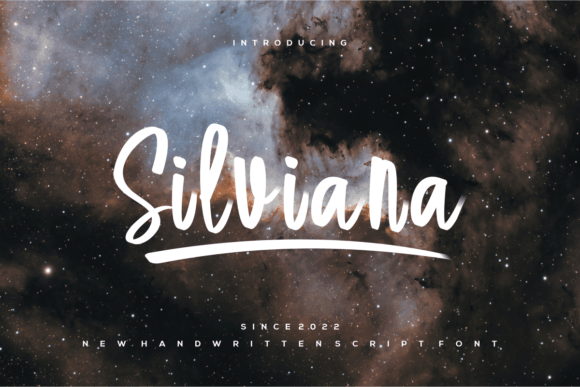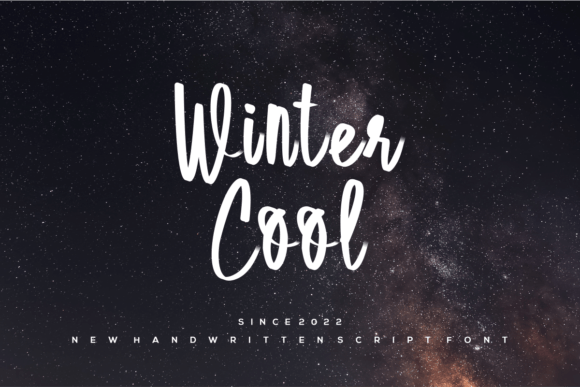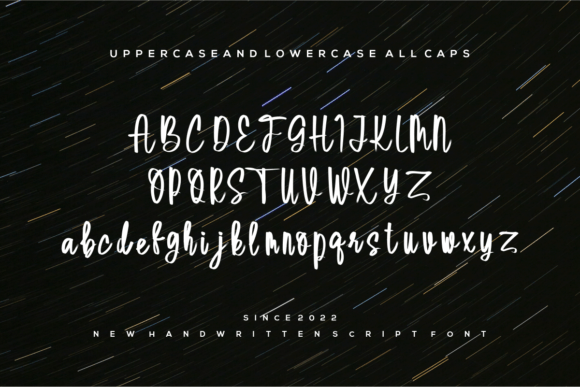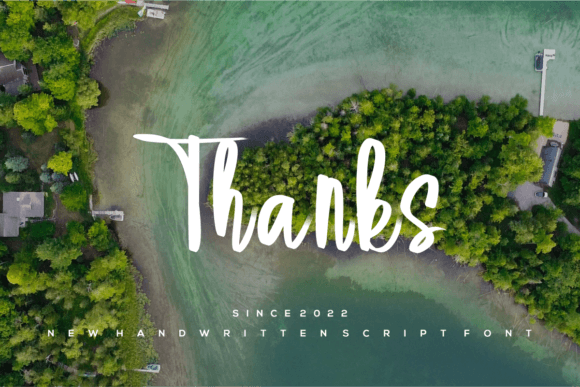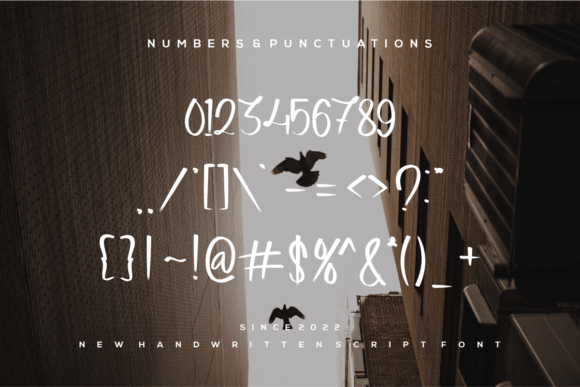
About Silviana Font
Meet Silviana, a sweet and elegant handwritten font that seamlessly marries a classy calligraphic influence with a contemporary and fresh feel. Let yourself fall in love with its charm, and elevate your project to the highest level with the timeless elegance of Silviana!
This font encapsulates a perfect blend of sweetness and sophistication, making it a versatile choice for a variety of creative projects. Its handwritten script exudes a delicate charm, while the underlying calligraphic influence adds a touch of class that feels both timeless and relevant.
Silviana doesn’t just follow trends; it sets its own by combining classic elements with a modern twist. The result is a font that stands out, making your projects truly unique and captivating.
Imagine the impact of Silviana on your designs, where each letter carries an air of grace and elegance. Its versatility allows it to complement a range of applications, from invitations and branding to any project where a touch of refined style is desired.
More than just a font, Silviana becomes an essential part of your creative journey, taking your projects to new heights. Fall in love with Silviana, and witness how it transforms your creative vision into a masterpiece of sweetness, elegance, and timeless appeal.